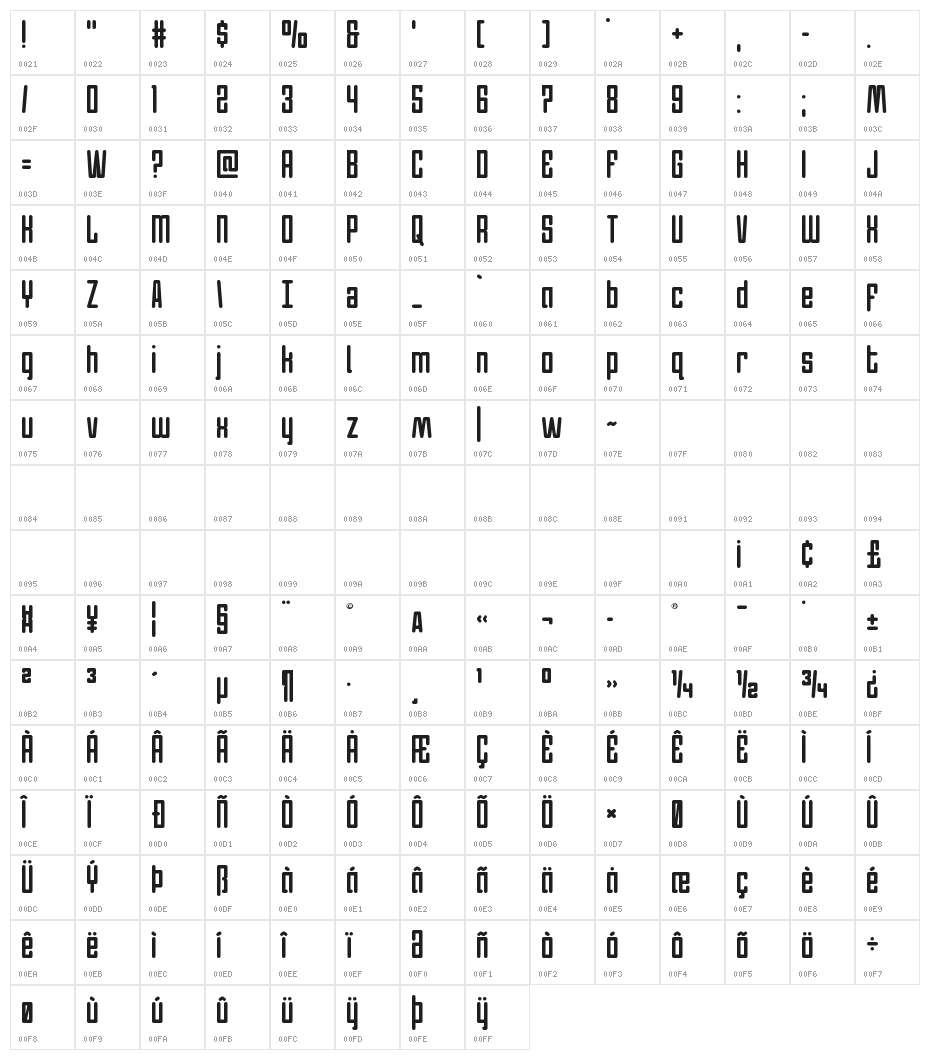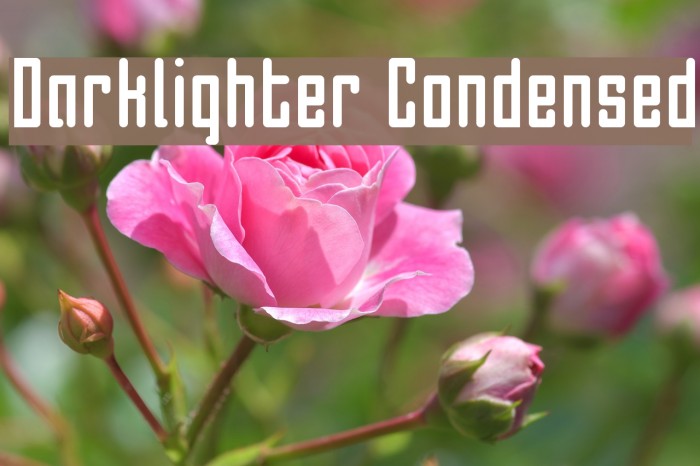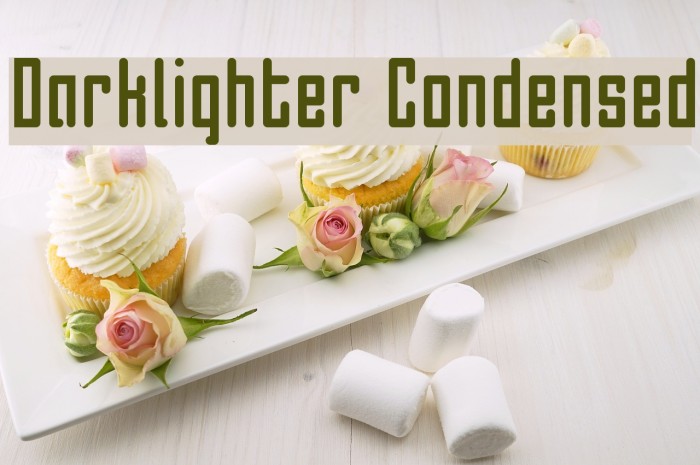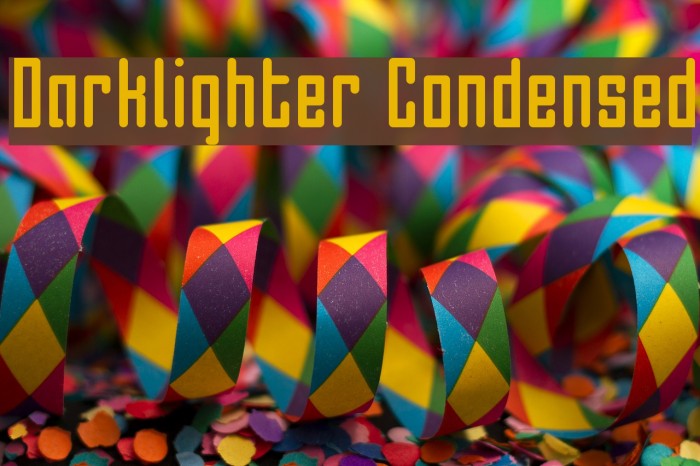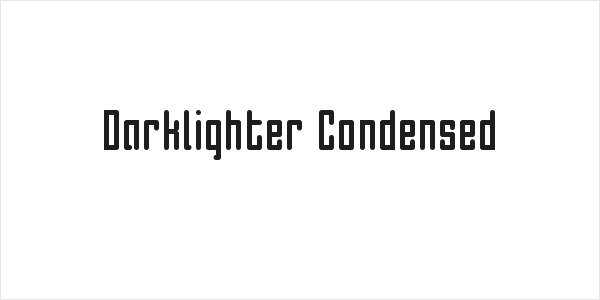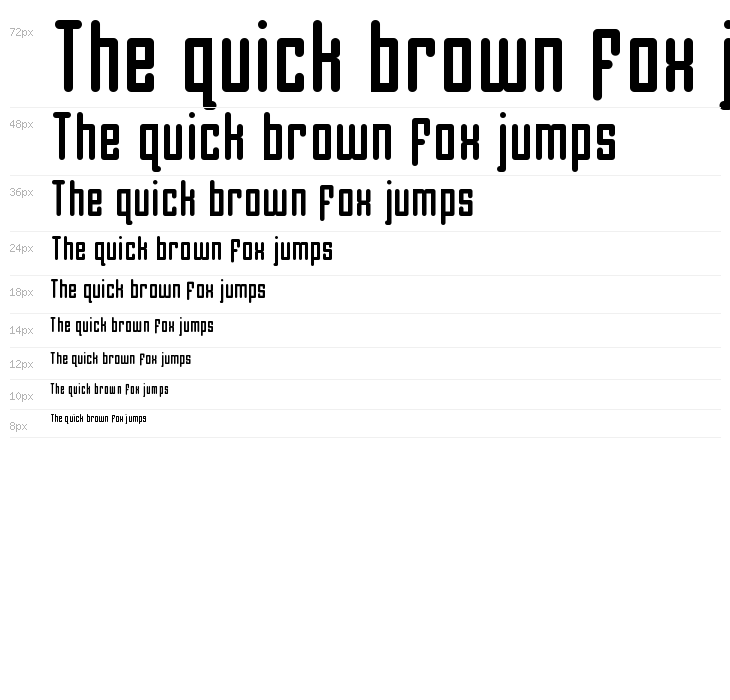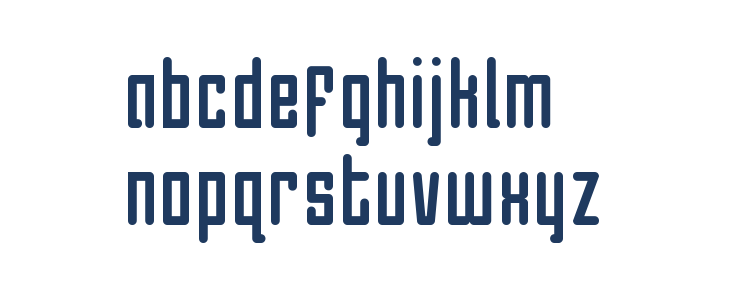
Darklighter Condensed Font
Darklighter Condensed Description
This font features a bold, condensed style with a modern and geometric aesthetic. The characters are tall and narrow, with uniform stroke widths that give it a clean and structured appearance. The uppercase and lowercase letters maintain a consistent height, enhancing readability while providing a distinct visual impact. The numbers and special characters follow the same design principles, ensuring a cohesive look across all glyphs. The font's design is minimalistic yet striking, making it suitable for various applications where a contemporary and bold statement is desired.